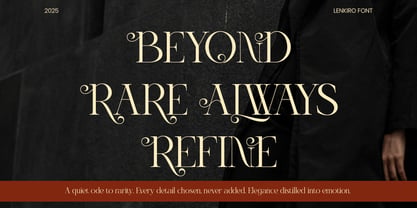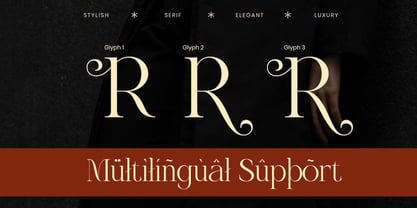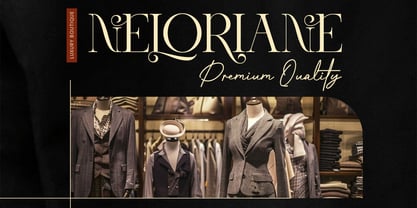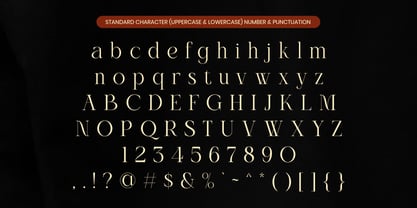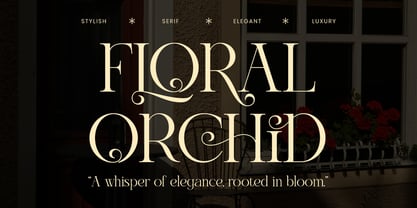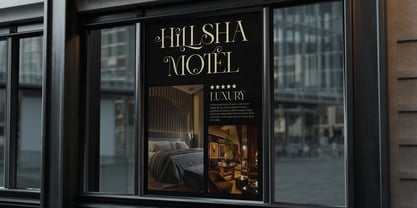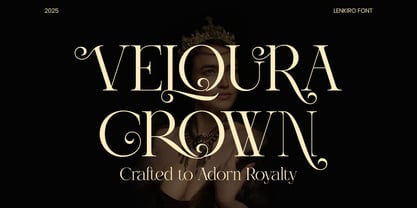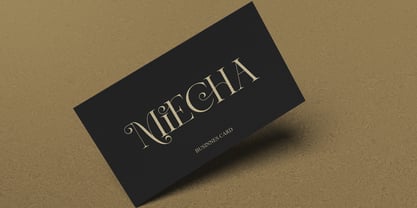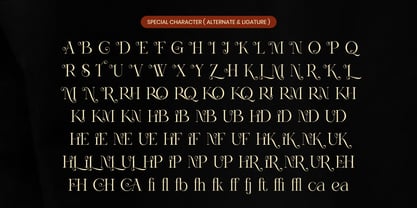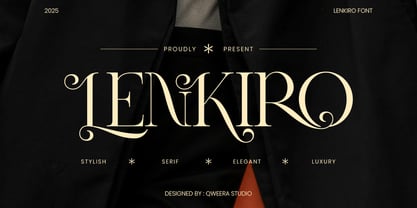
Lenkiro
The Lenkiro Font Family was designed by Idhham Cholid Rikzano Yahya and published by Qweera Studio. Lenkiro contains 2 styles and family package options. More about this family
Lenkiro is a modern elegant display serif designed with precision and stylistic refinement. The typeface blends high contrast structure with expressive swash elements to create a sophisticated and luxurious visual identity. It includes alternates, ligatures, and multilingual support, making it ideal for professional branding, editorial, and high-end packaging. A perfect choice for designers who demand elegance and versatility in typography. Features Alternates Ligatures Decorative swashes Multilingual support Professional kerning Specifications Language Support: Western, Central Europe Features: Alternates, Ligatures Recommended For Luxury branding, editorial design, fashion identity, packaging, wedding design, premium typography systems